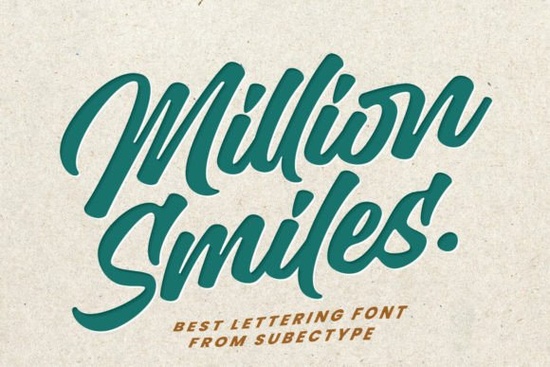
If you're looking for a script font that blends urban energy with approachable charm, the Million Smiles Font might be exactly what your next project needs. Designed as a refined evolution of the earlier “Billion Dreams” typeface, Million Smiles softens sharp edges into gentle curves while keeping its bold, hand-lettered personality. It’s especially well-suited for greeting cards, branding for small cafes or boutiques, apparel designs, and social media graphics where warmth and style matter.
This casual bold script lands in that sweet spot between playful and polished ideal if you want your work to feel personal without tipping into overly whimsical territory. The rounded terminals and smooth connections give it a friendly rhythm, making it readable even at larger sizes. And because it’s built with modern design workflows in mind, it pairs effortlessly with clean sans-serifs or minimalist display fonts.
What kinds of projects work best with Million Smiles?
Thanks to its balanced mix of confidence and approachability, Million Smiles shines in contexts where human connection is key:
- Print-on-demand merchandise like mugs, tote bags, or T-shirts with uplifting quotes
- Wedding or baby shower invitations that need a touch of modern flair (it complements delicate details without overpowering them)
- Social media banners for lifestyle brands, wellness coaches, or local artisans
- Logo concepts for businesses that value authenticity think bakeries, florists, or handmade skincare lines
If you’ve used similar fonts like Baby Dreams or Thunder Heat Duo, you’ll notice Million Smiles offers a slightly bolder presence with more consistent stroke weight great for when you need legibility alongside personality.
How does it compare to other hand-lettered scripts?
Not all script fonts are created equal. Some lean too decorative and become hard to read; others feel stiff despite their “handwritten” label. Million Smiles avoids both pitfalls by maintaining natural flow while ensuring each character remains distinct. Its letterforms have just enough bounce to feel lively but stay grounded enough for professional use.
For example, if you’re weighing options between this and something like Country Last Night Duo, consider your tone: Country Last Night has a rustic, vintage vibe, while Million Smiles feels contemporary and upbeat. Similarly, Single Line Font works beautifully for engraving or monoline illustrations, but Million Smiles brings full-bodied texture perfect for headlines and short phrases.
Tips for using Million Smiles effectively
To get the most out of this font, keep these practical pointers in mind:
- Avoid long paragraphs. Like most display scripts, it’s meant for emphasis not body text. Stick to headlines, logos, or short taglines.
- Pair it thoughtfully. A neutral sans-serif (like Montserrat or Lato) lets the script breathe. For contrast, try pairing with a geometric font from collections like Welcome Font.
- Adjust tracking slightly if needed. Some letters naturally connect closely; a tiny bit of letter-spacing can improve clarity on smaller prints.
- Use context-aware alternates. If your software supports OpenType features, enable stylistic sets for subtle variations that add organic feel.
Remember: the goal isn’t to make your design “look fancy,” but to communicate mood and trust. Million Smiles does that by feeling like it was made by a real person with intention, care, and yes, a few million smiles along the way.